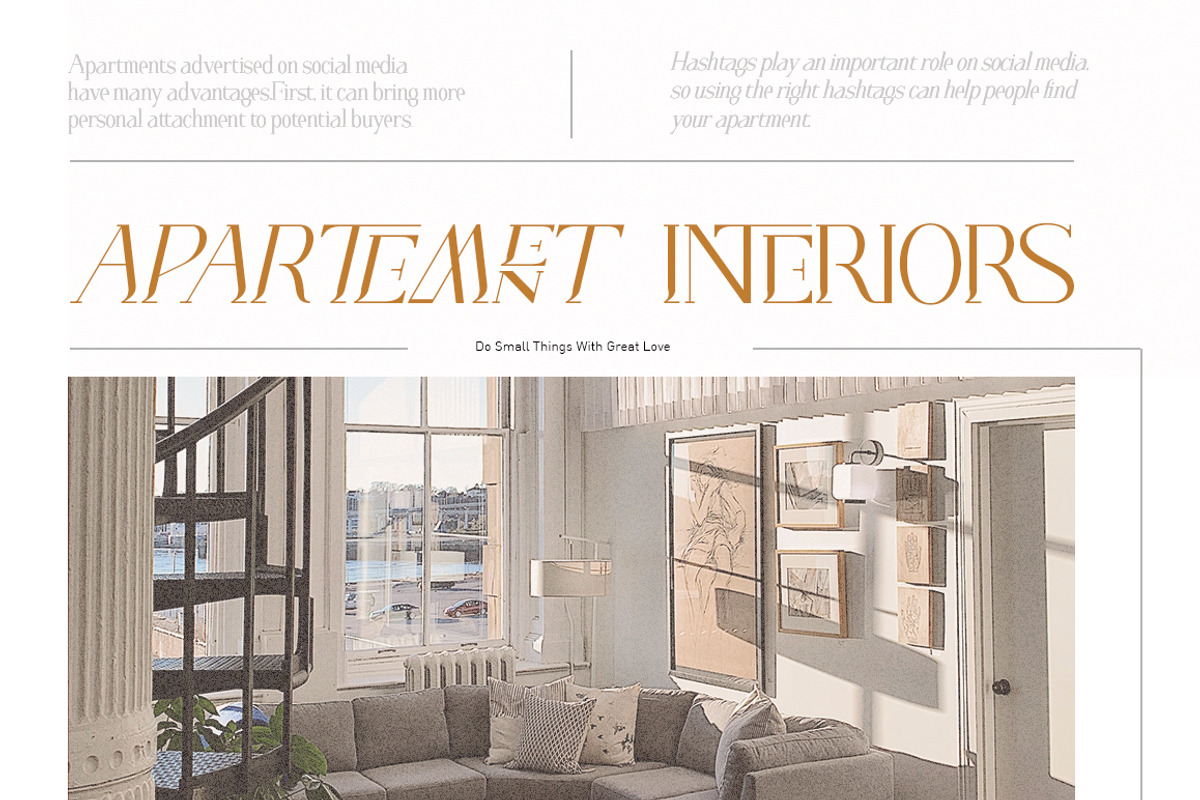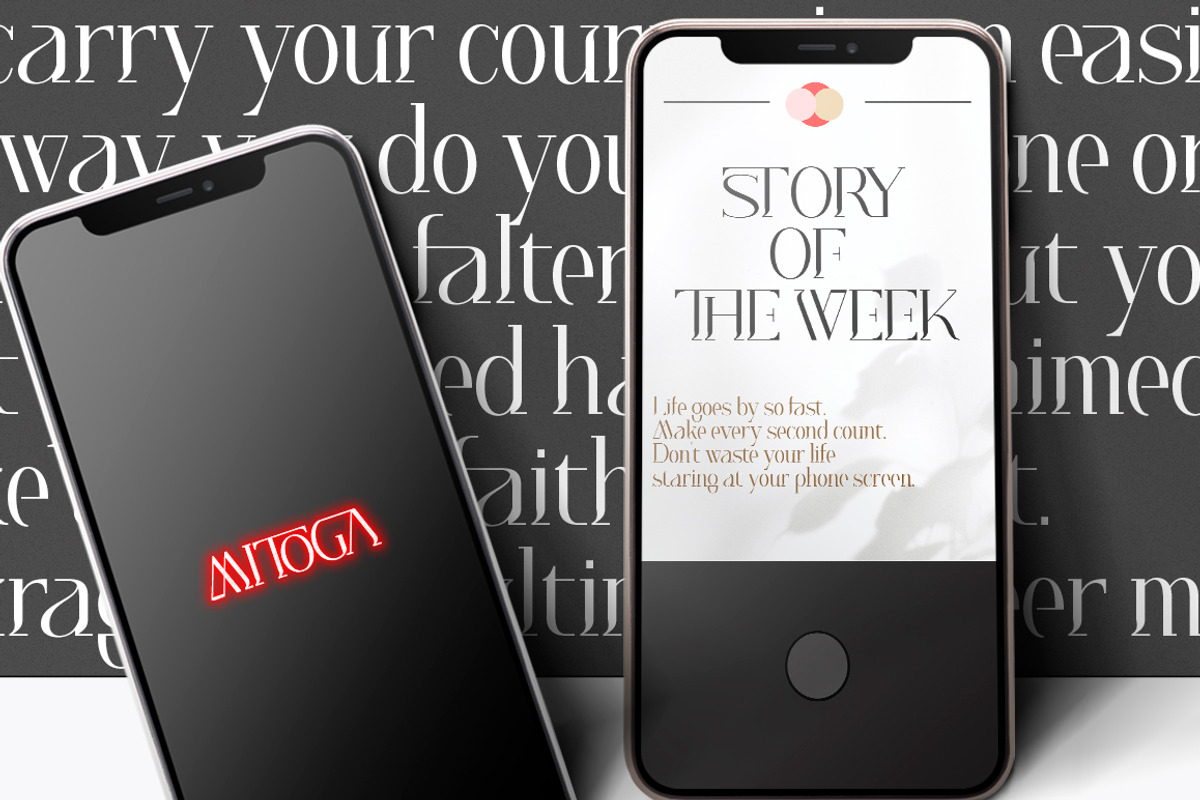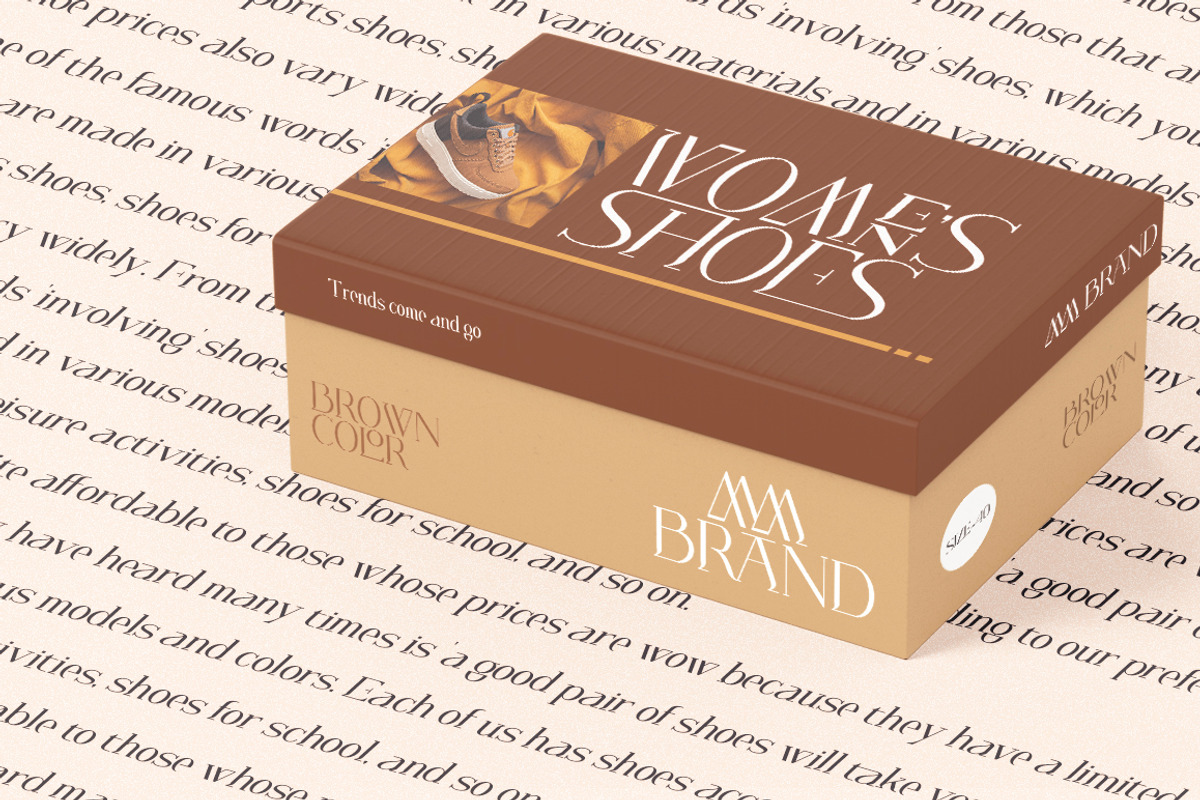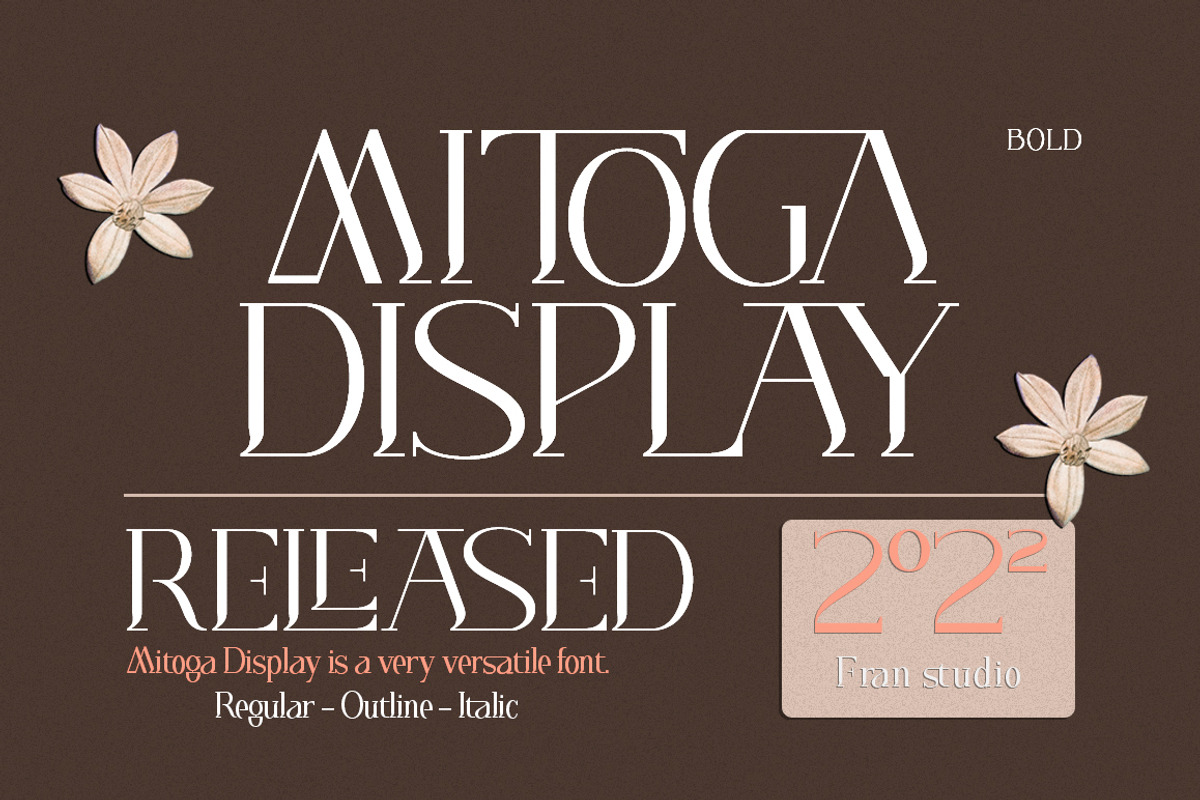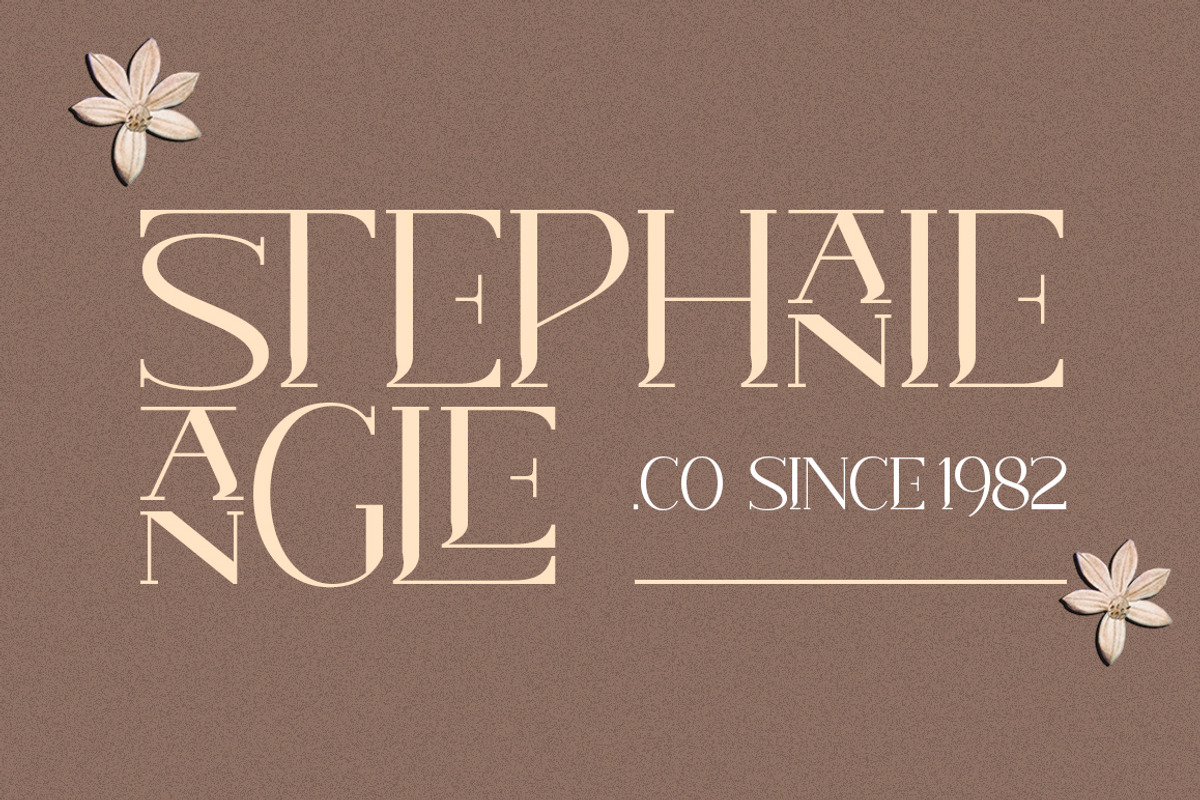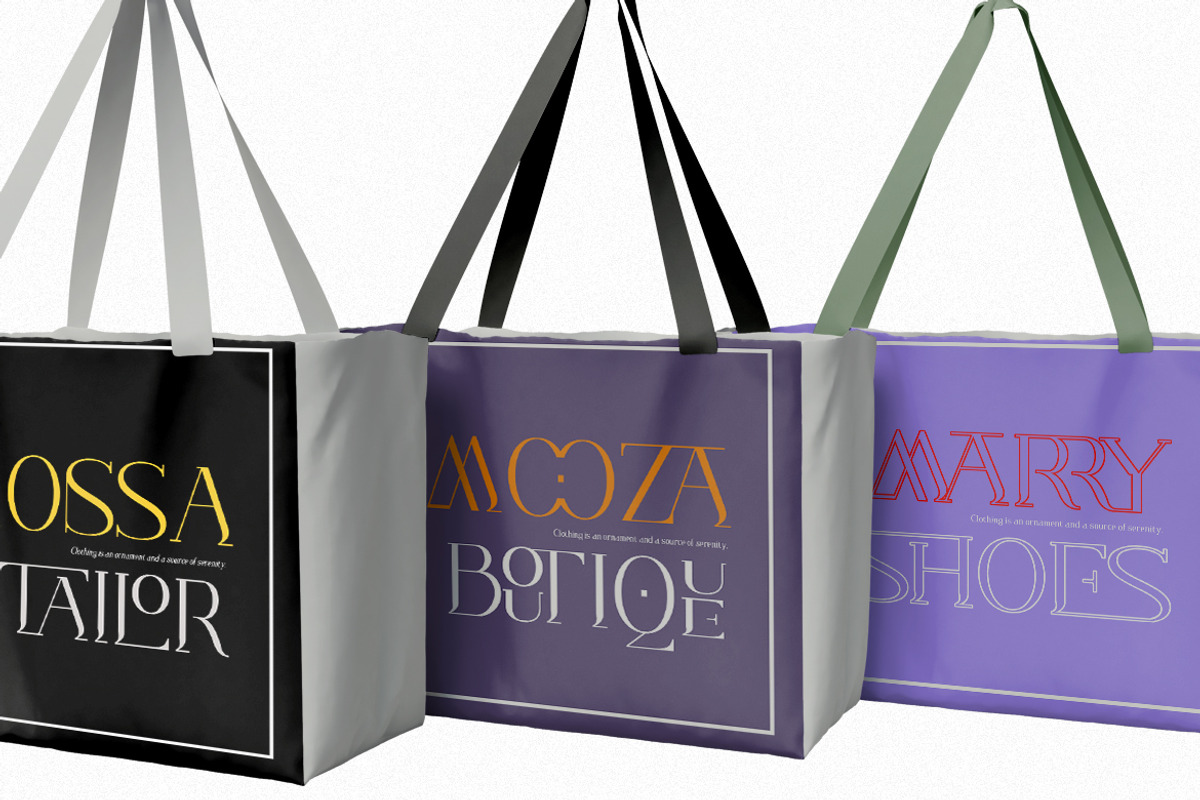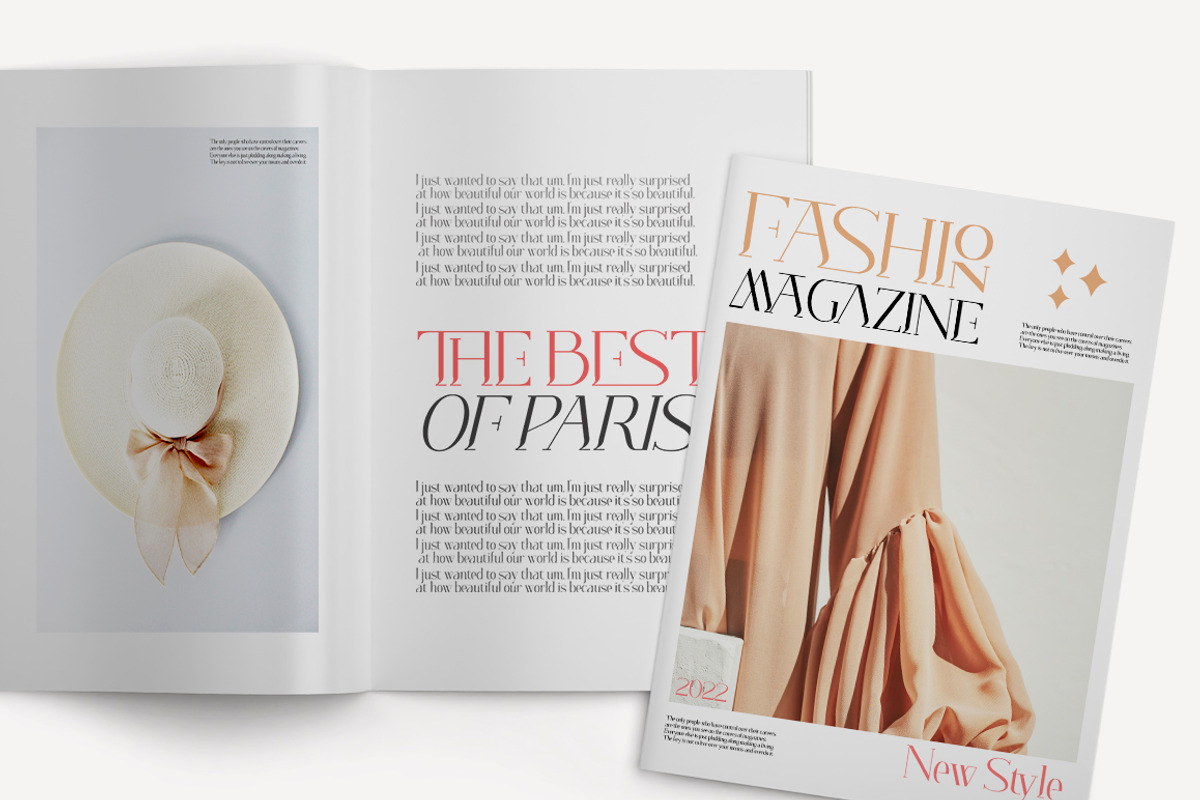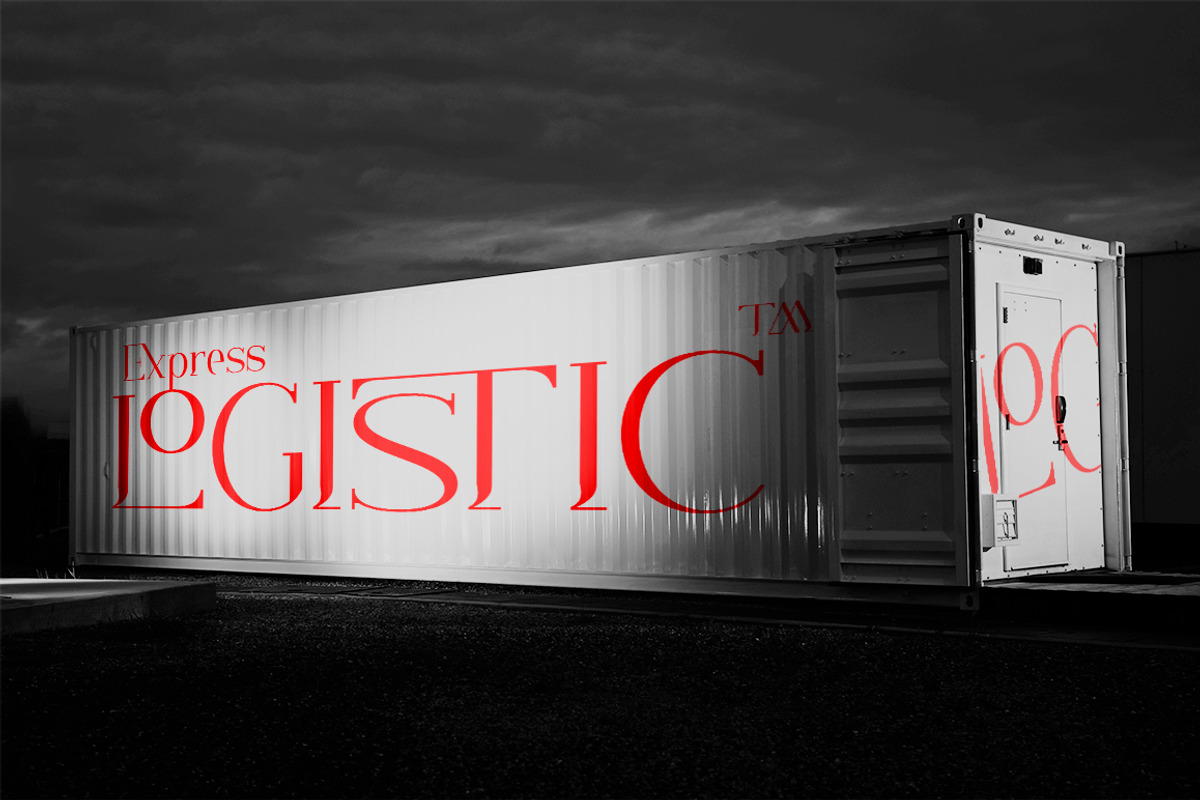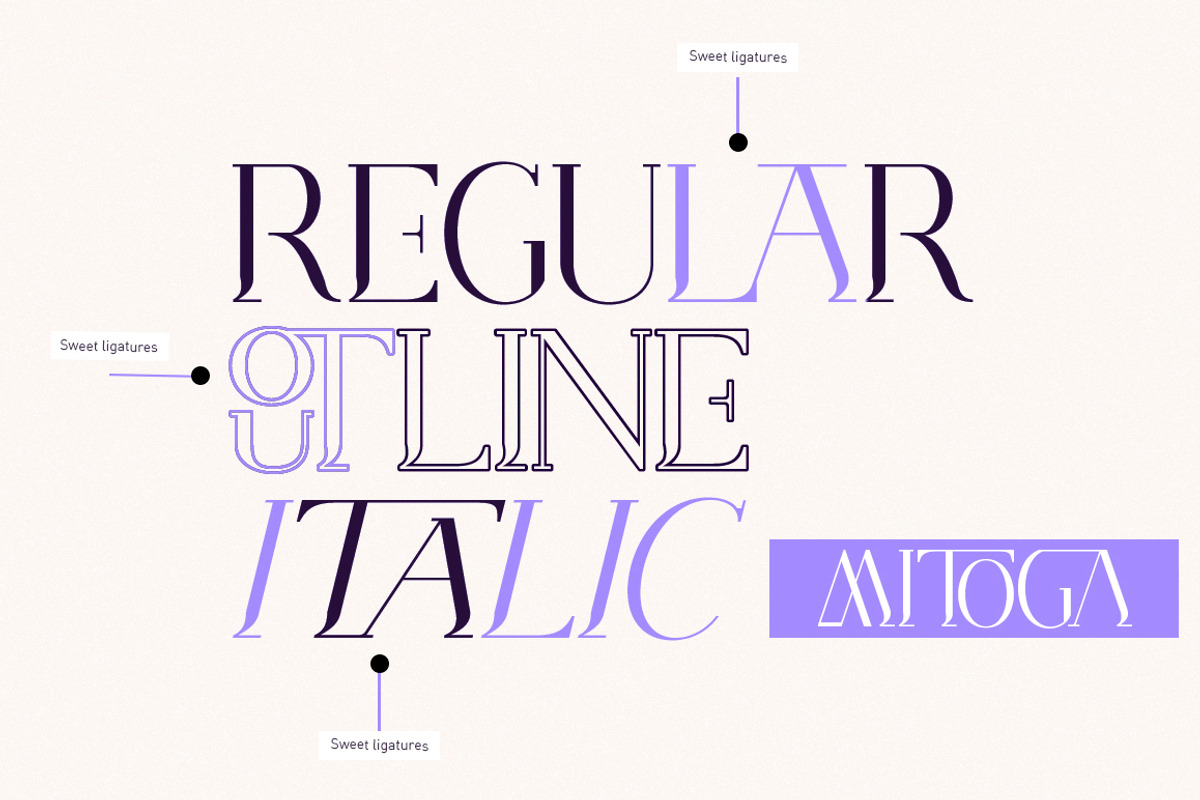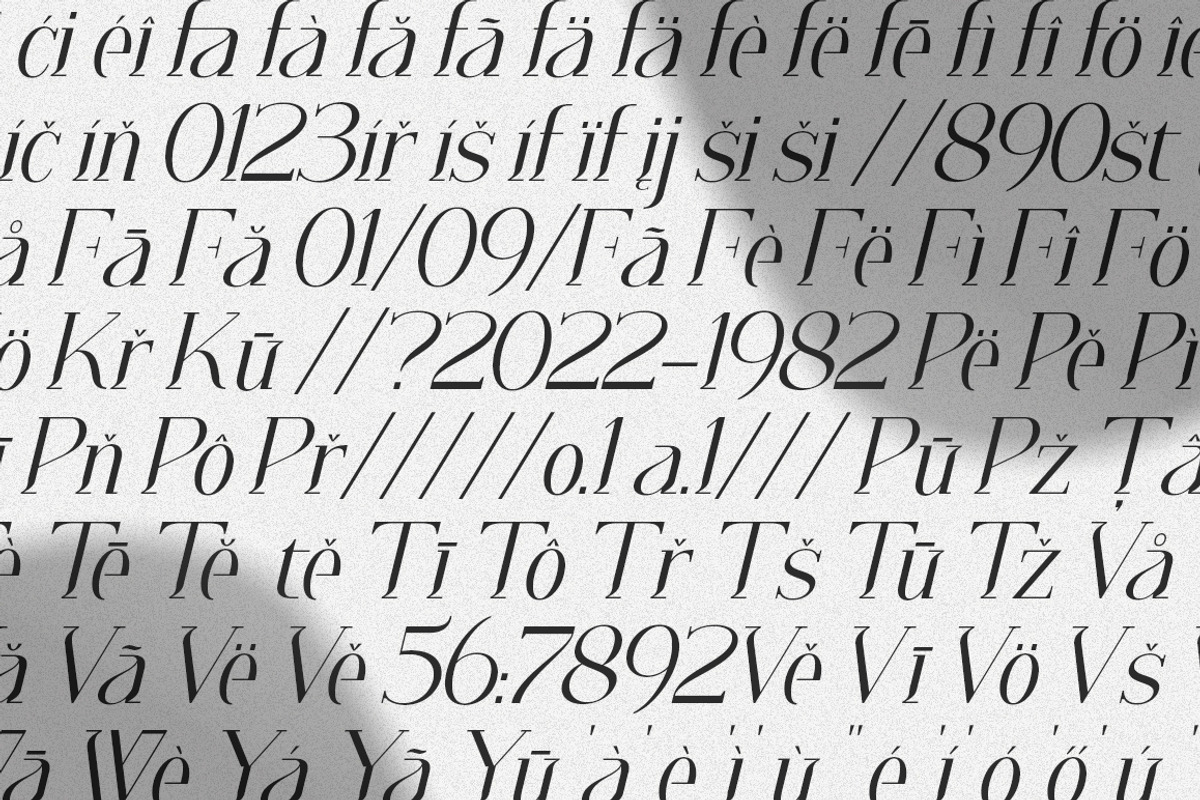
Mitoga Display
Mitoga Display is a very versatile font. perfect for magazine images, to wedding invitations, to branding, poster design, and more.
- Stylistic Alternates & Ligatures